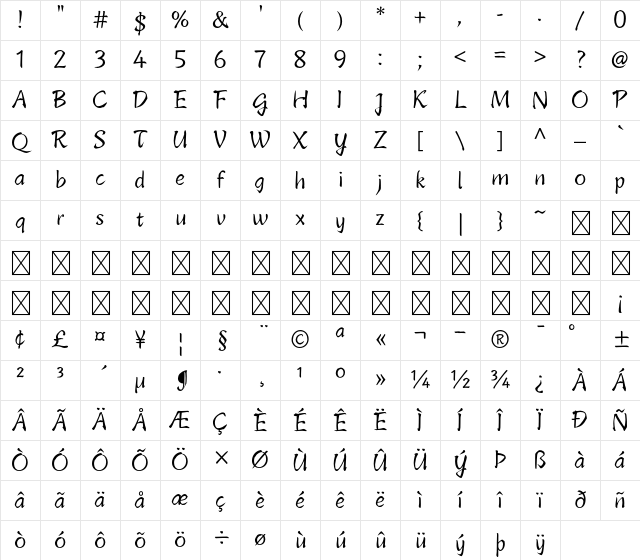
Complete A P-OTF KinreiGyosho Std Reg glyph index. Displaying only characters natively supported by A P-OTF KinreiGyosho Std Reg font.
A P-OTF KinreiGyosho Std is a composed and adaptable typeface that performs quietly and consistently across a wide range of design contexts.
Pro Tip: Use A P-OTF KinreiGyosho Std in both headline and body roles to test its range before committing to a single application.